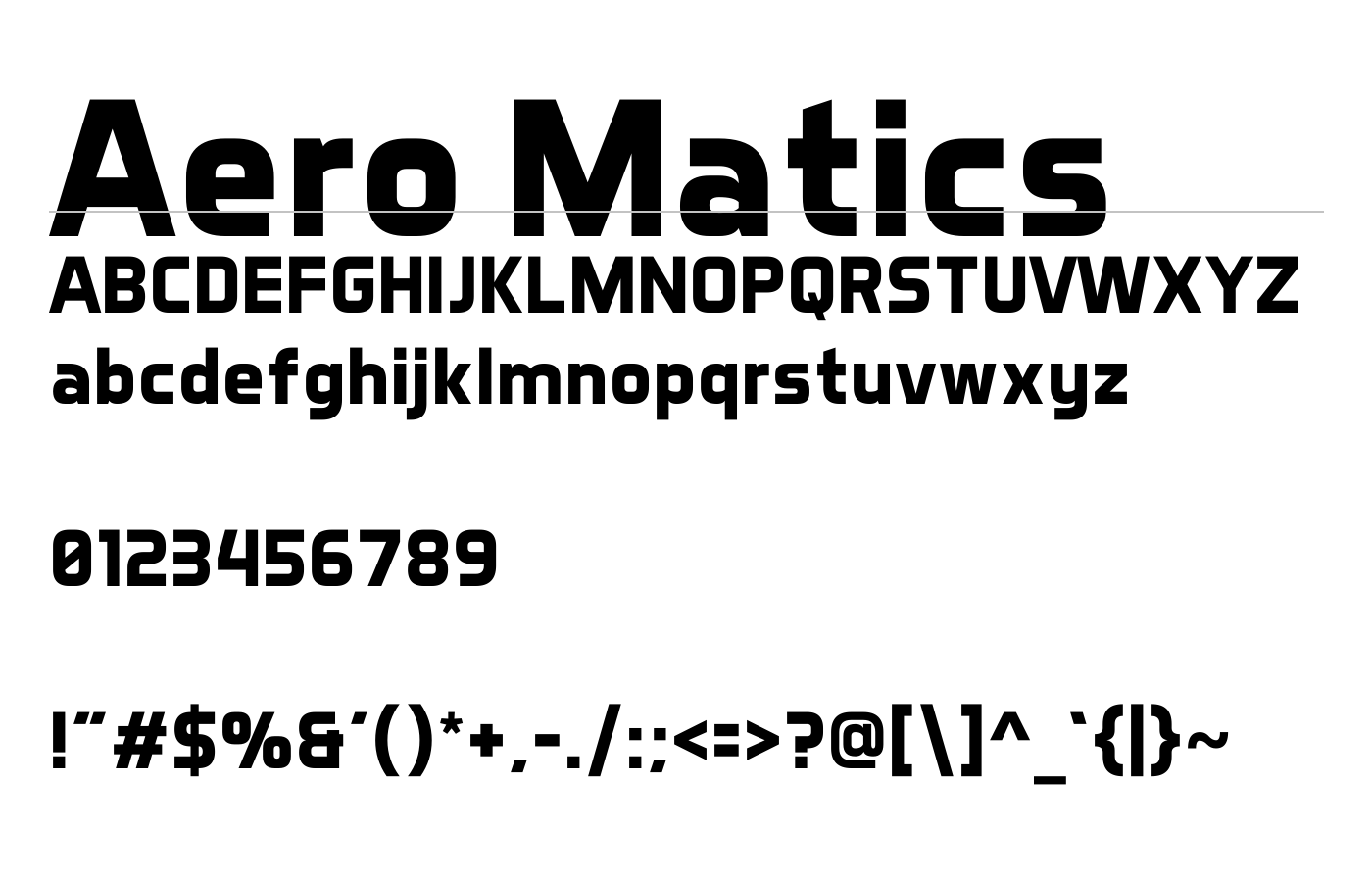
Aero Matics is a bold, geometric sans serif font with a strong, modern appearance perfect for creating a commanding presence. Its wide, blocky letterforms with minimal contrast and squared terminals convey a sense of strength and reliability, making it ideal for logos, headlines, and branding in tech or industrial fields. This font’s clean, straightforward style ensures excellent readability while projecting a professional, futuristic vibe.
Aero Matics Font
About Aero Matics Font